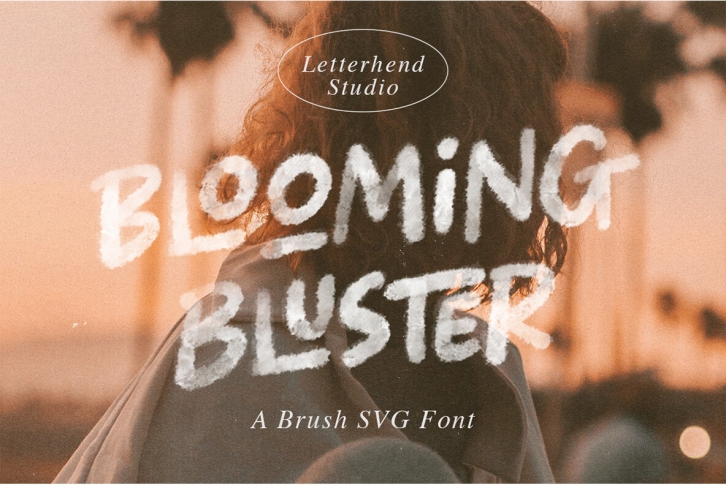
Blooming Bluster is a textured SVG Sans Serif typeface. Available in two types, solid version and transparent version. This type of font is made to be applied especially in headlines.